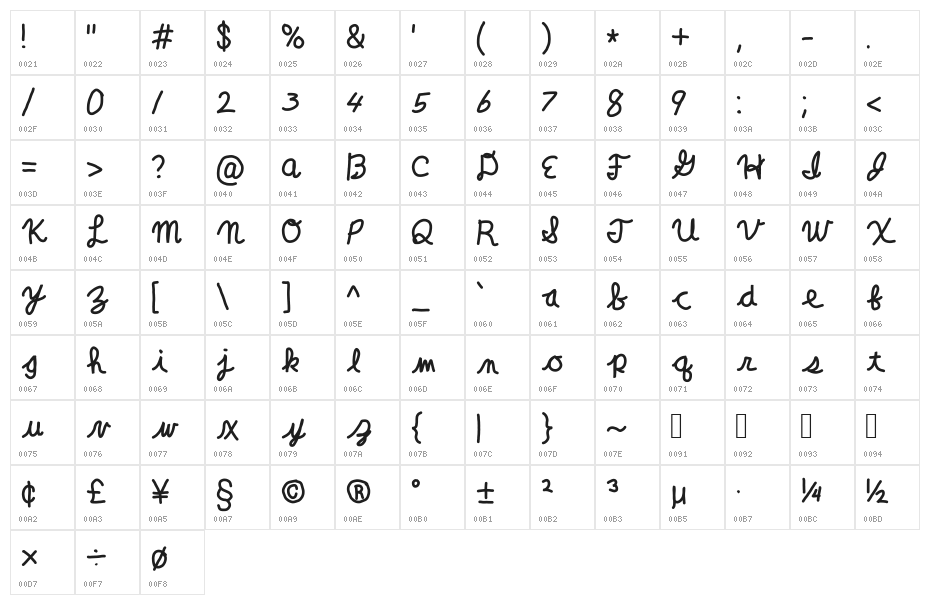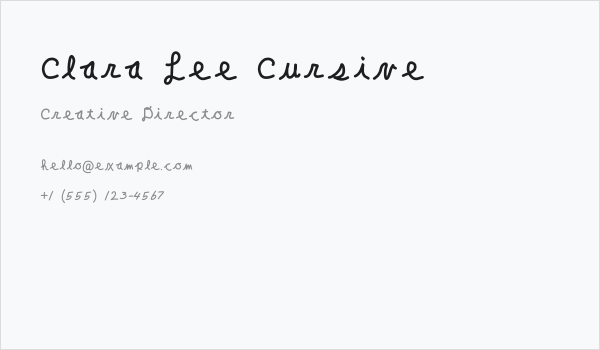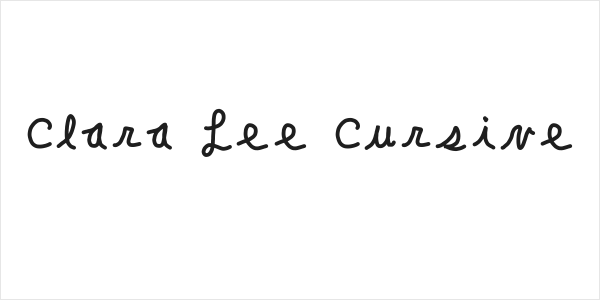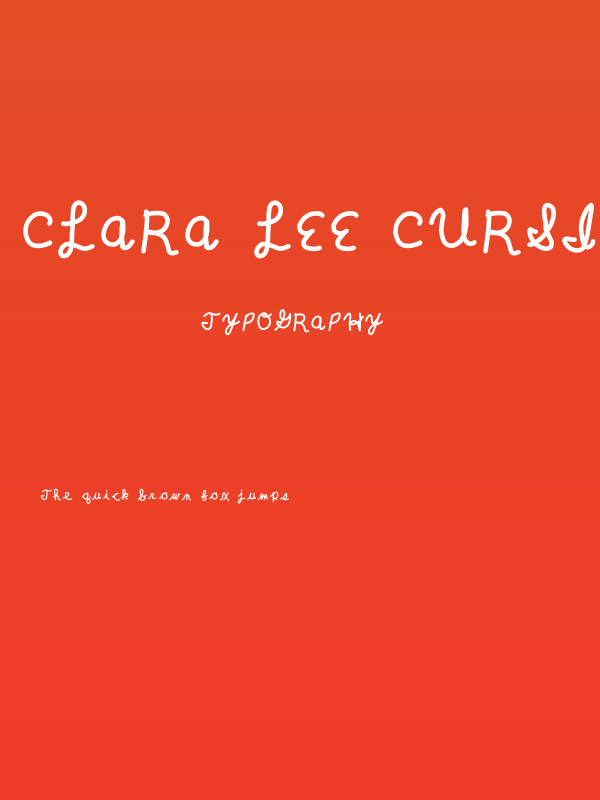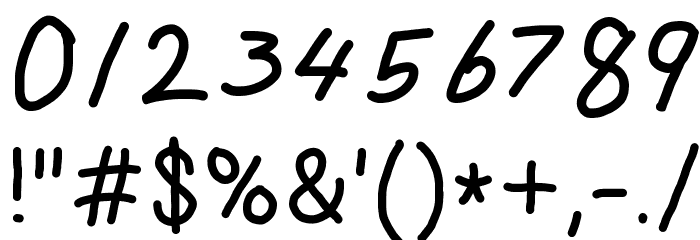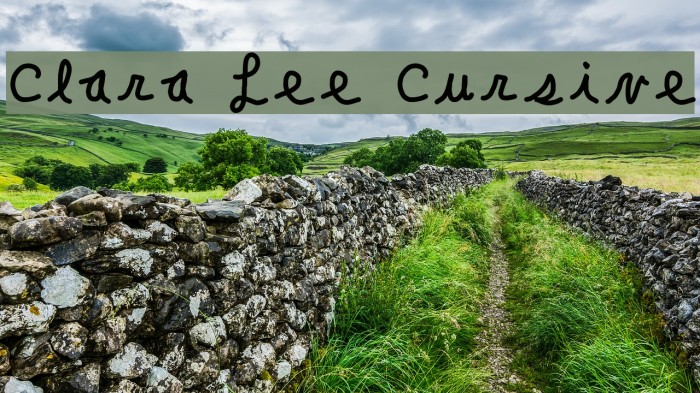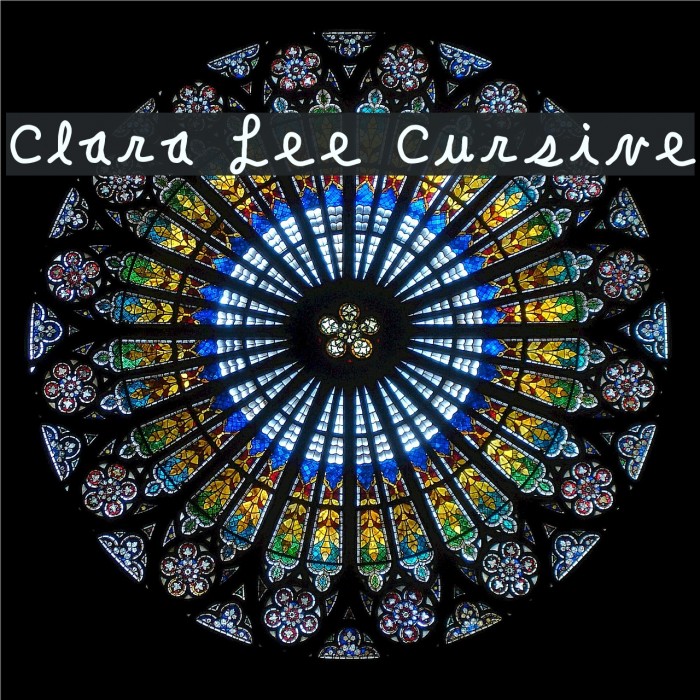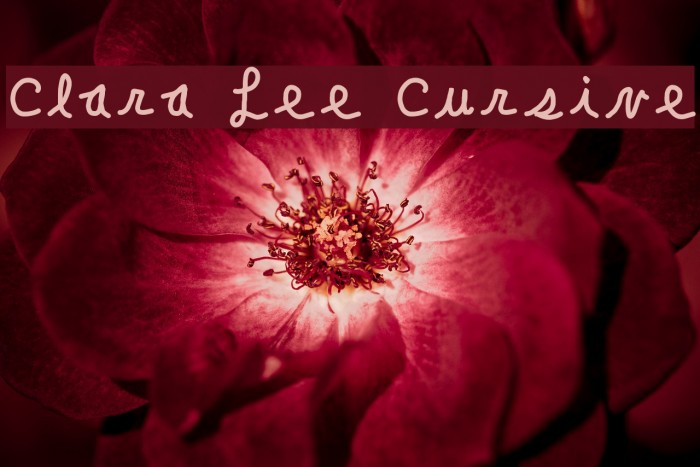
Clara Lee Cursive Font
Clara Lee Cursive Description
This font features a playful and flowing cursive style, characterized by its smooth, rounded strokes and consistent slant. The uppercase letters are distinct yet harmoniously blend with the lowercase, maintaining a cohesive appearance. The numerals and special characters follow the same fluid design, ensuring uniformity across all glyphs. Its handwritten aesthetic gives it a personal touch, making it suitable for projects that require a casual and friendly tone. The font's legibility is enhanced by its moderate spacing and balanced proportions, making it versatile for various applications.
| Proposed Projects | Ideal for greeting cards, invitations, personal branding, and creative projects that benefit from a handwritten touch. |